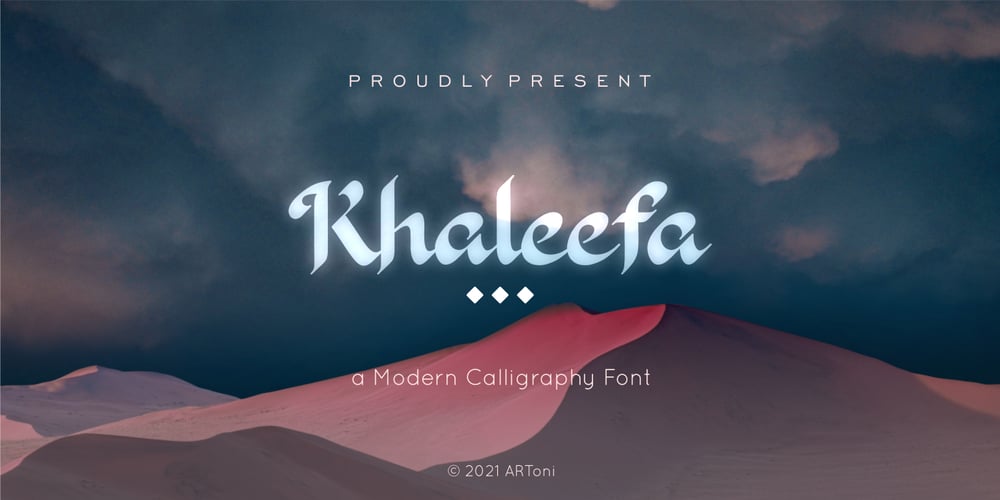
Khaleefa Font Family was designed by Anthonie Van Hayu and published by ARToni. Khaleefa contains 1 styles and family package options. Khaleefa is a classic, elegant and timeless calligraphy font with a bold twist. Get inspired by its modern feel. Ligature Multilingual PUA encoded